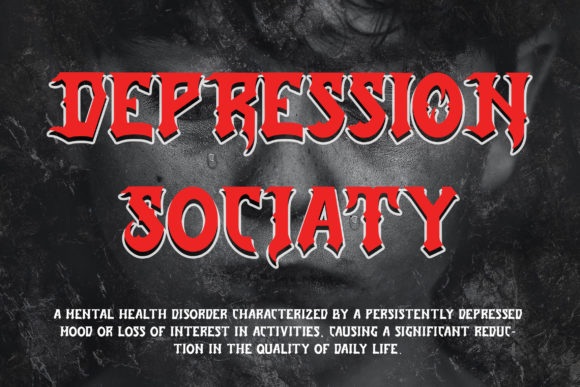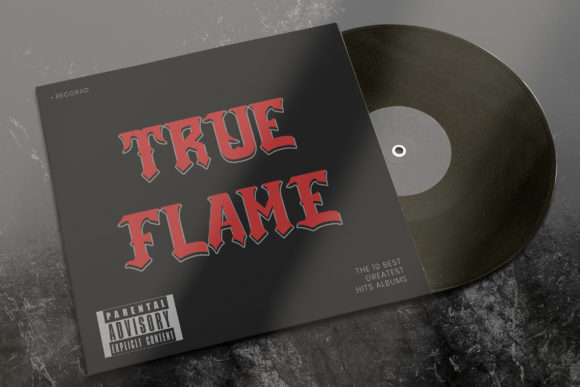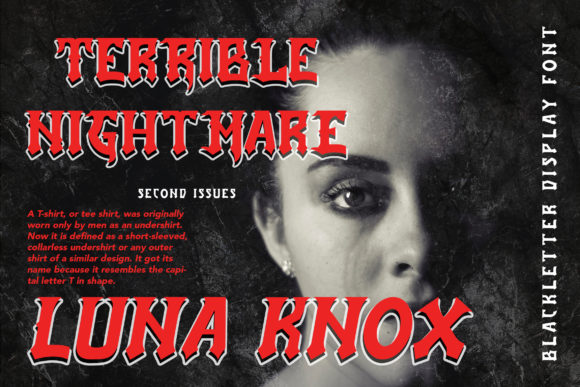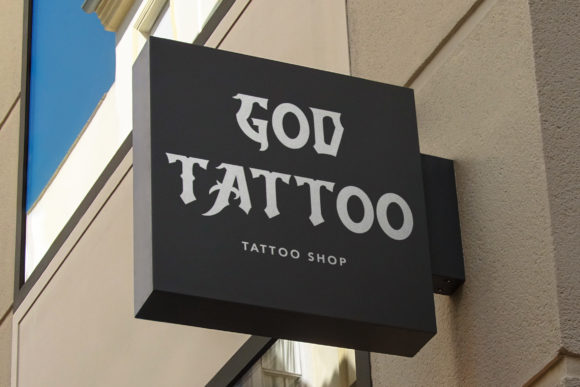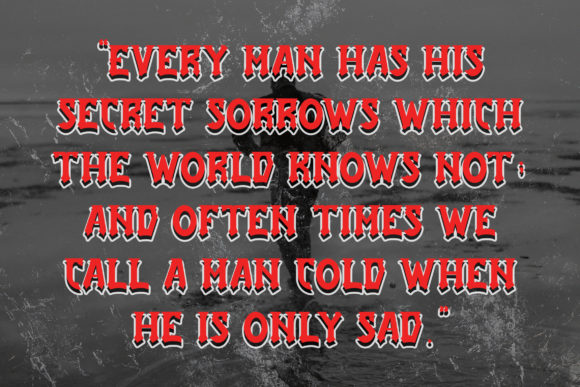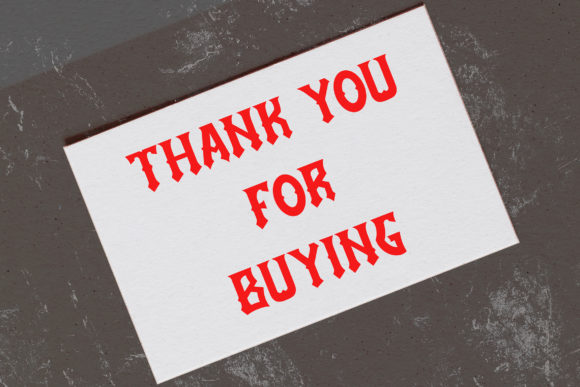
Unleash the Dark Side: Introducing Anxiety of Sadness Font
Are you a designer or crafter looking for a font that embodies the essence of gothic and horror themes? Look no further than the Anxiety of Sadness Font. This blackletter font is specifically designed to evoke a sense of eeriness and mystery, making it perfect for a wide range of creative projects.
Inspired by the Dark Arts
The Anxiety of Sadness Font draws inspiration from traditional gothic and horror styles, with intricate details and ornate flourishes. The font’s design is characterized by its dramatic and haunting appearance, making it an excellent choice for projects that require a touch of darkness and sophistication.
One of the standout features of the Anxiety of Sadness Font is its versatility. This font is not limited to a specific type of project; instead, it can be used across a wide range of applications, including:
- Logotypes: Create a lasting impression with a custom logotype that exudes mystery and power.
- Posters: Design eye-catching posters that grab attention and evoke a sense of eeriness.
- Badges: Add a touch of horror to your badges, making them stand out from the crowd.
- Book Covers: Create a haunting cover for your next novel or horror story.
- T-shirt Designs: Make a statement with a bold and eye-catching design.
- Packaging: Add a touch of gothic elegance to your product packaging.
Why Choose Anxiety of Sadness Font?
So, why should you choose the Anxiety of Sadness Font for your next project? Here are just a few reasons:
- Unique and Distinctive: This font is unlike any other, offering a unique and distinctive look that will set your project apart.
- Ease of Use: The Anxiety of Sadness Font is easy to use and can be integrated seamlessly into your design workflow.
- High-Quality: This font is designed to high standards, ensuring that it looks great in any context.
- Customization: The font can be customized to suit your specific needs, allowing you to tailor it to your project’s requirements.
Tips for Using Anxiety of Sadness Font
To get the most out of the Anxiety of Sadness Font, here are a few tips to keep in mind:
- Pair with Other Fonts: Experiment with pairing the Anxiety of Sadness Font with other fonts to create a unique and eye-catching combination.
- Experiment with Colors: Don’t be afraid to experiment with different colors and textures to add depth and interest to your design.
- Keep it Simple: While the Anxiety of Sadness Font is ornate and intricate, it’s essential to keep your design simple and focused to avoid overwhelming the viewer.
In conclusion, the Anxiety of Sadness Font is an exceptional choice for designers and crafters looking to add a touch of gothic and horror flair to their projects. With its unique and distinctive design, versatility, and ease of use, this font is sure to become a staple in your design toolkit. So, why wait? Download the Anxiety of Sadness Font today and unleash the dark side of your creativity.
- Blackletter font inspired by gothic and horror styles
- Perfect for logotypes, posters, badges, book covers, T-shirt designs, packaging, and more
- Unique and distinctive design
- Ease of use and high-quality design
- Customizable to suit specific needs